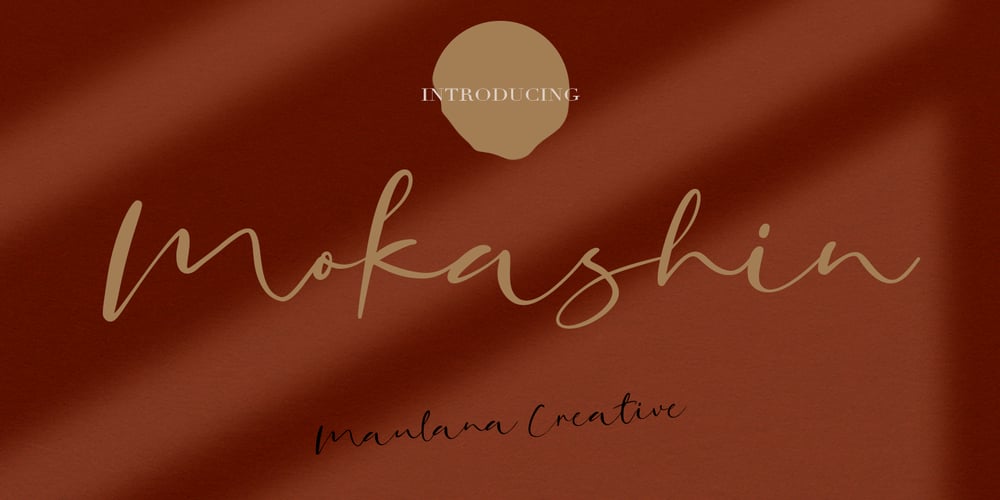
Mokashin Font Family was designed by Gilang Maulana and published by Maulana Creative. Mokashin contains 1 styles and family package options. Give your designs an authentic handcrafted feel. “Mokashin Fancy Script Font” is perfectly suited to signature, stationery, logo, typography quotes, magazine or book cover, website header, clothing, branding, packaging design and more.Thanks for use this font ~ Maulana